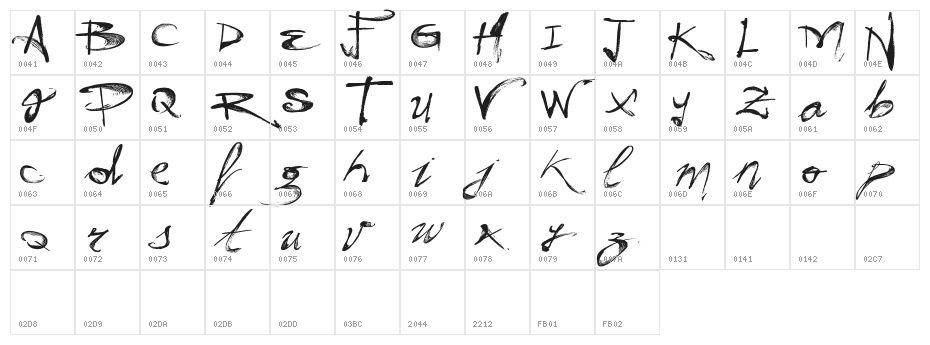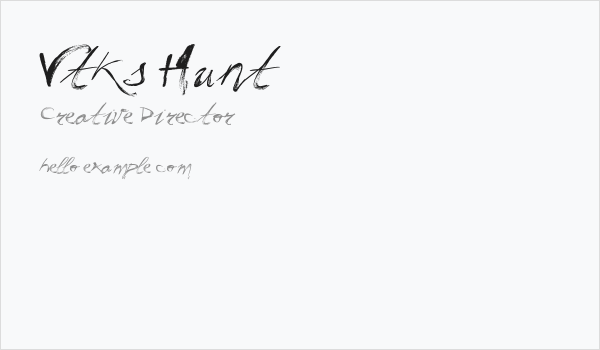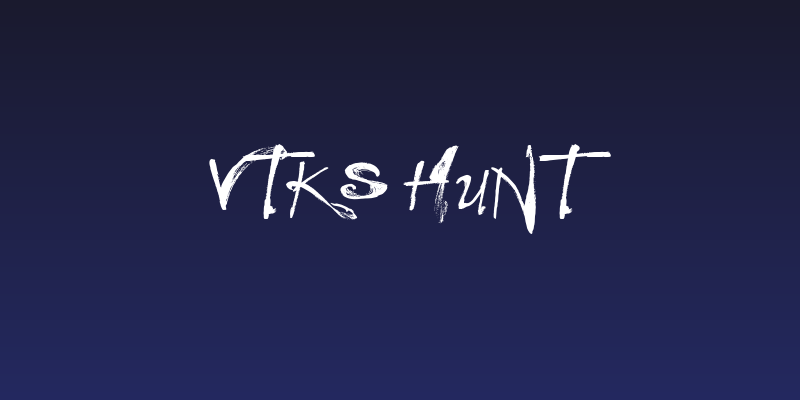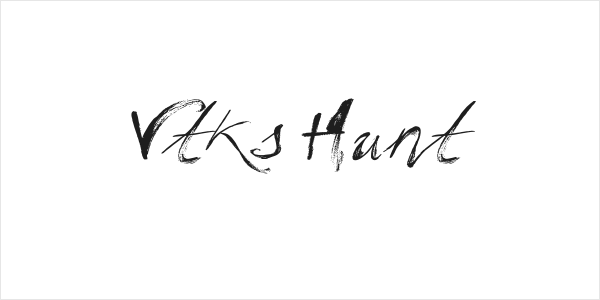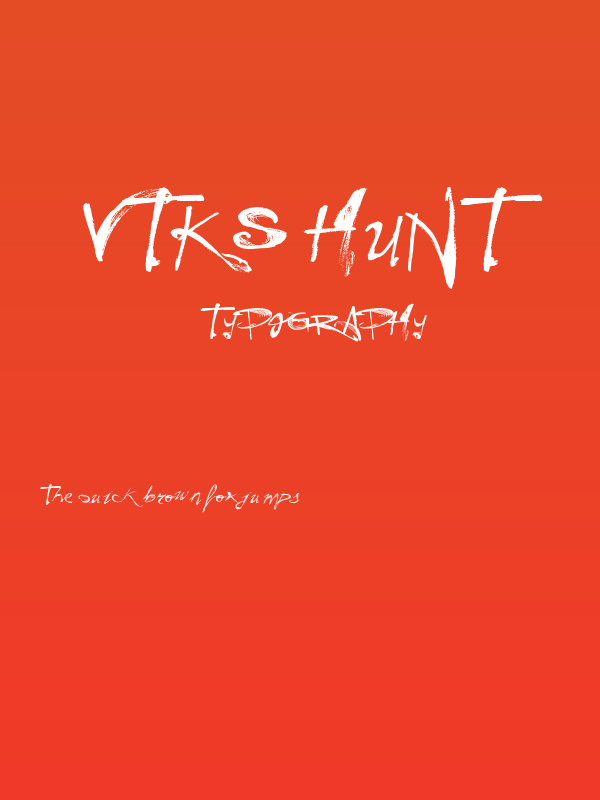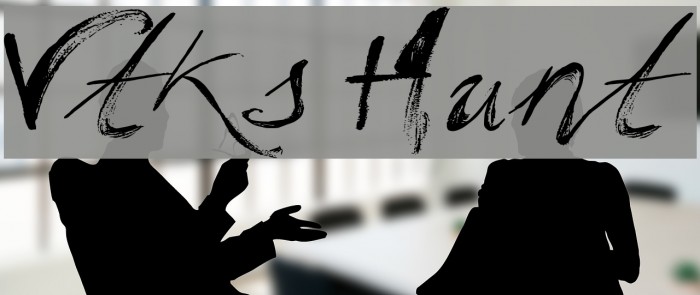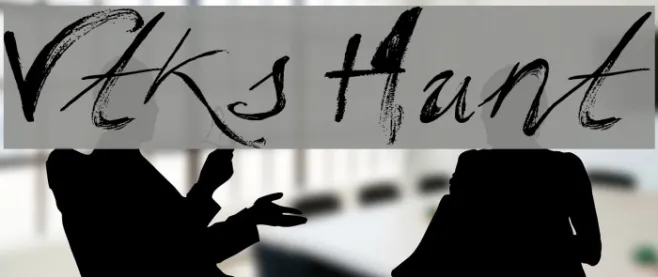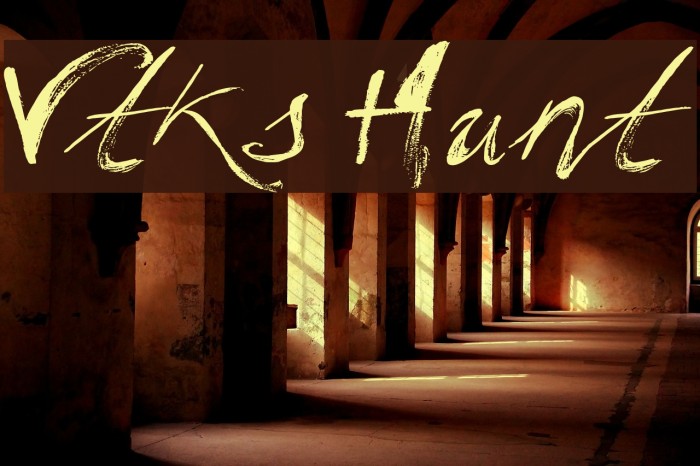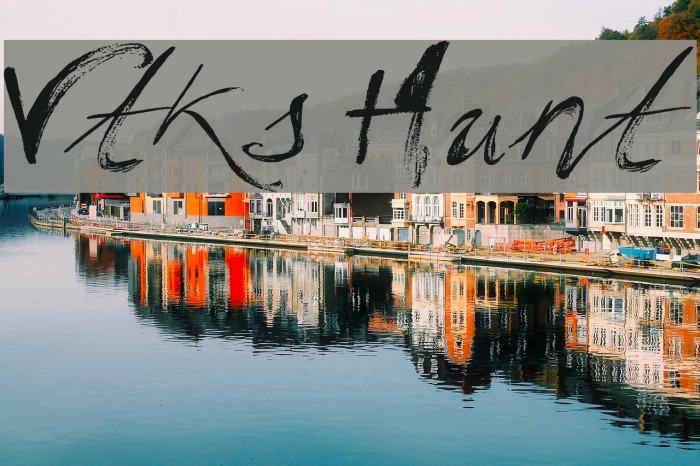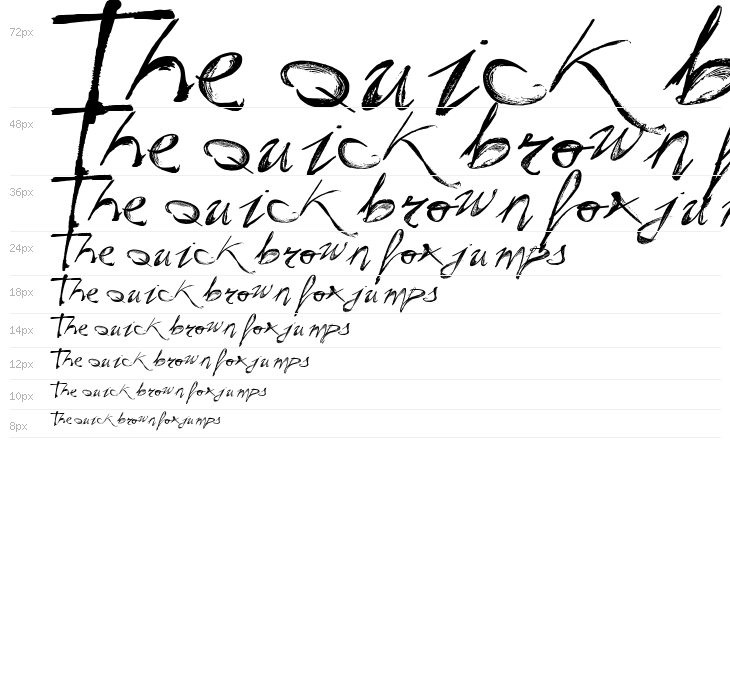
Vtks Hunt Font
Vtks Hunt Description
This font exhibits a bold, expressive style with a hand-painted appearance. The strokes are dynamic and irregular, giving it an energetic and artistic feel. The letters are characterized by their brush-like texture, with varying thicknesses that create a sense of movement and spontaneity. The uppercase and lowercase letters maintain a consistent style, with some characters featuring unique flourishes and extensions. The overall impression is one of creativity and boldness, making it suitable for projects that require a strong visual impact.
| Overall Style | Artistic, Expressive |
| Proposed Projects | Ideal for artistic posters, album covers, branding for creative industries, and any project that requires a dynamic and bold visual statement. |